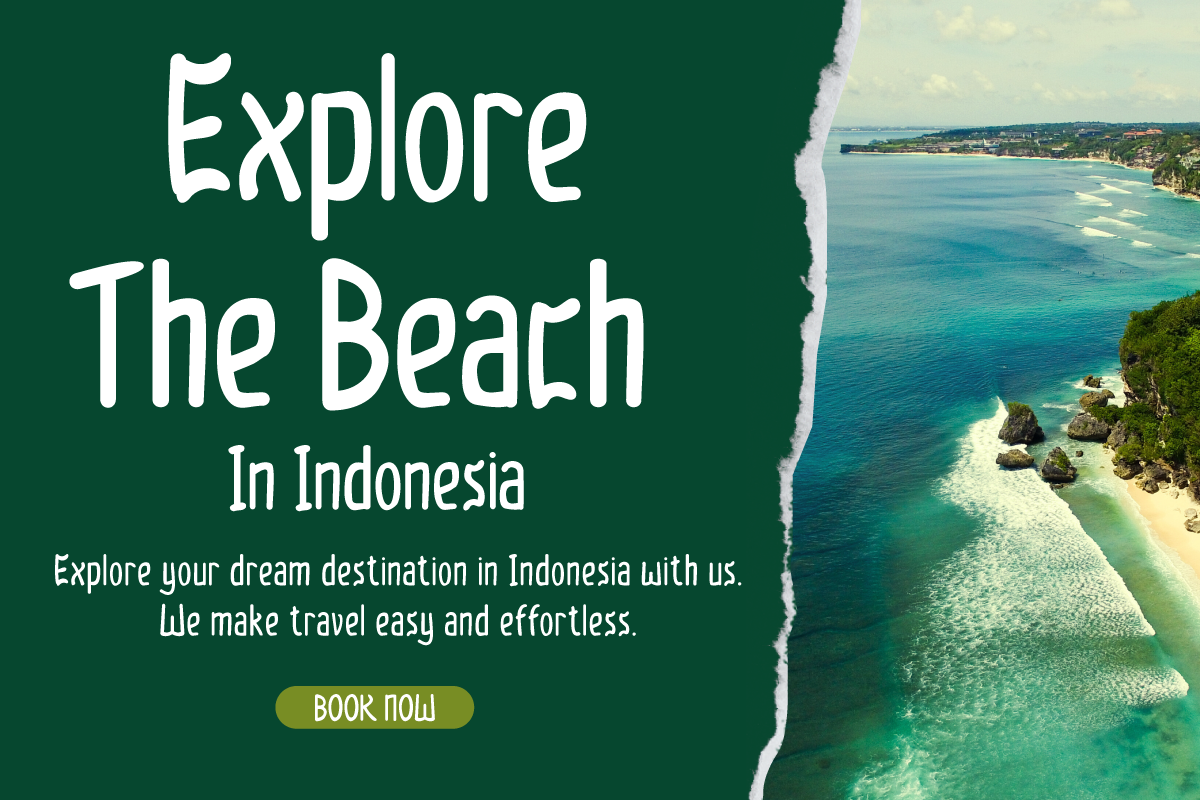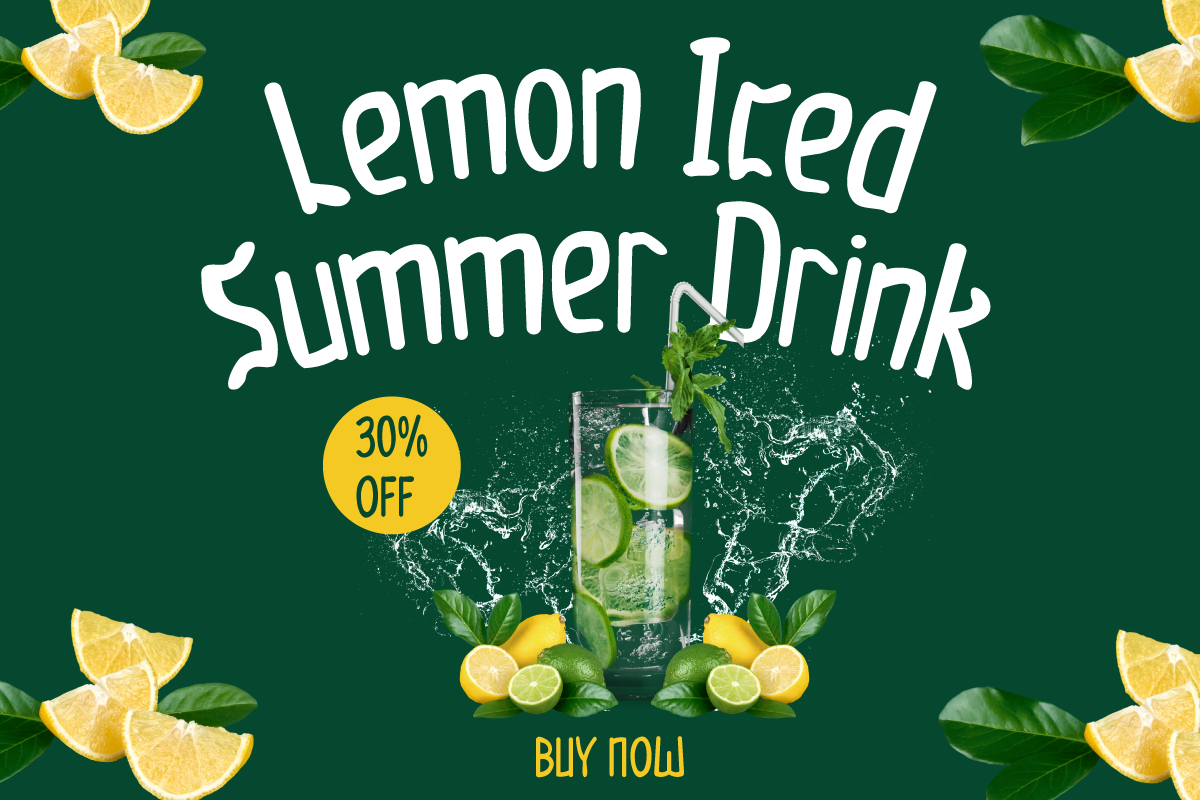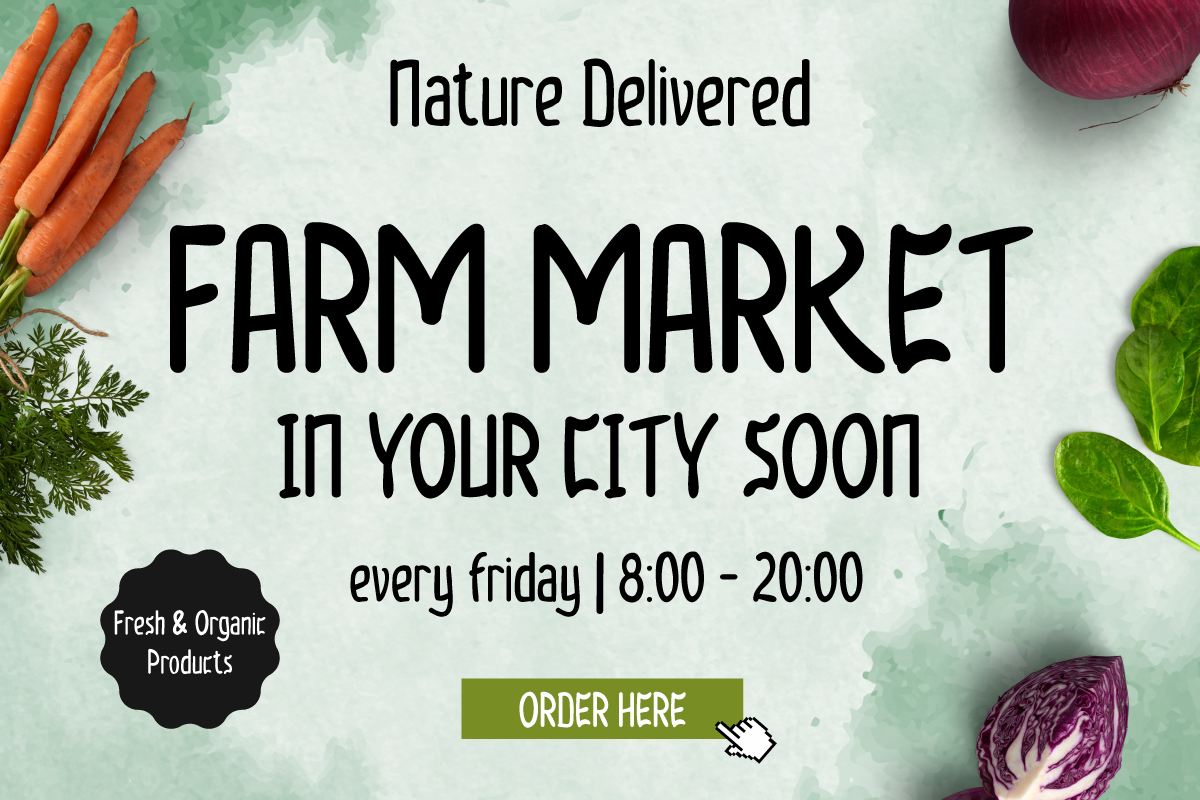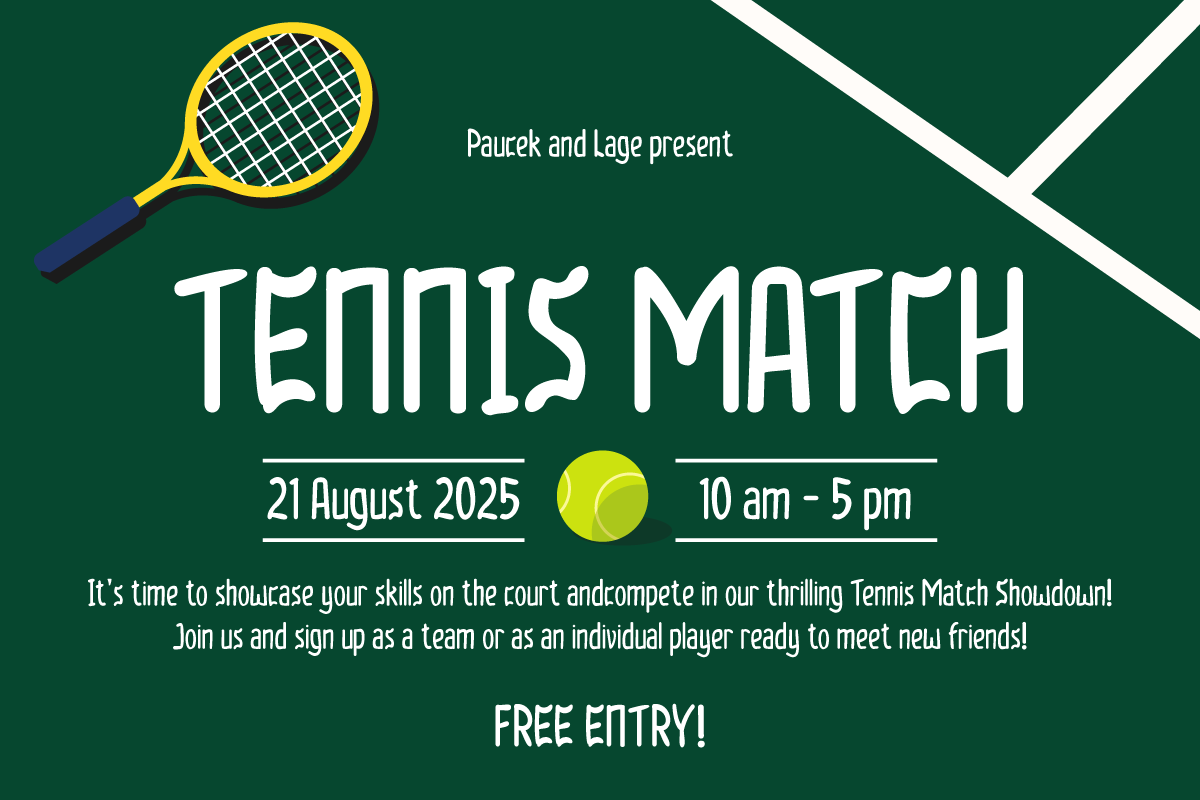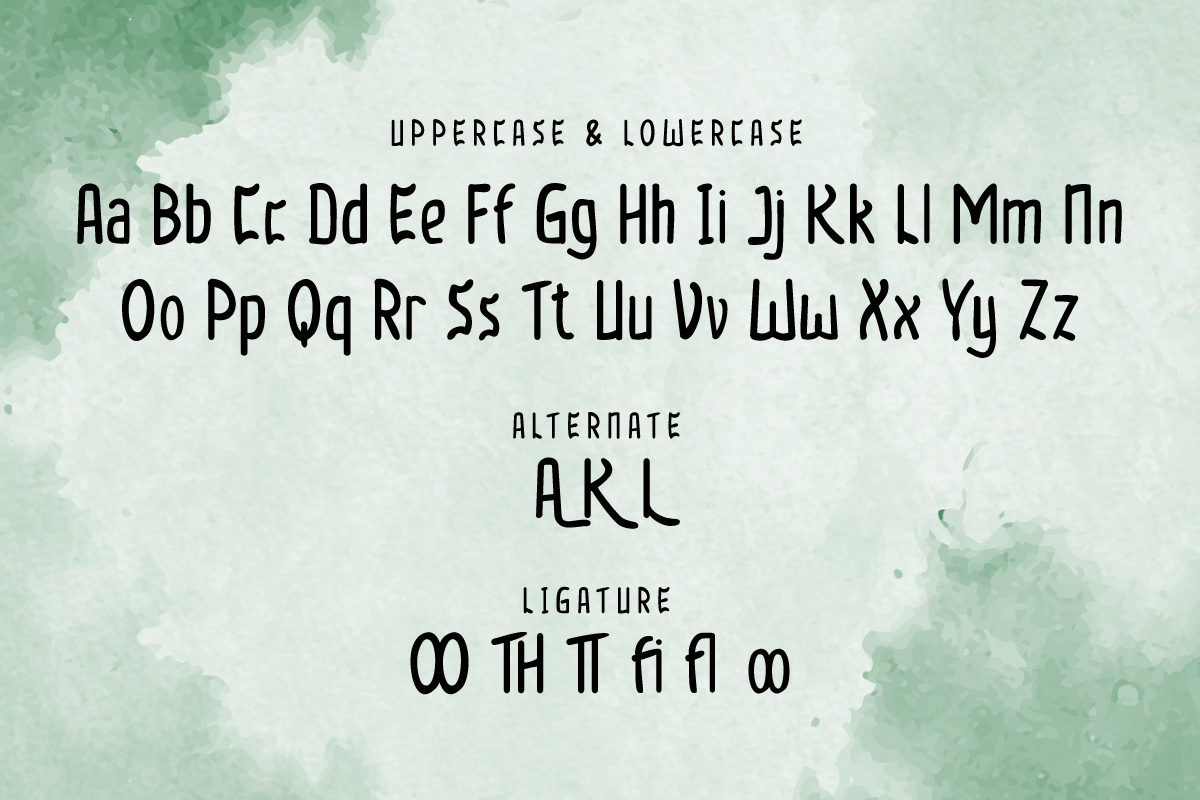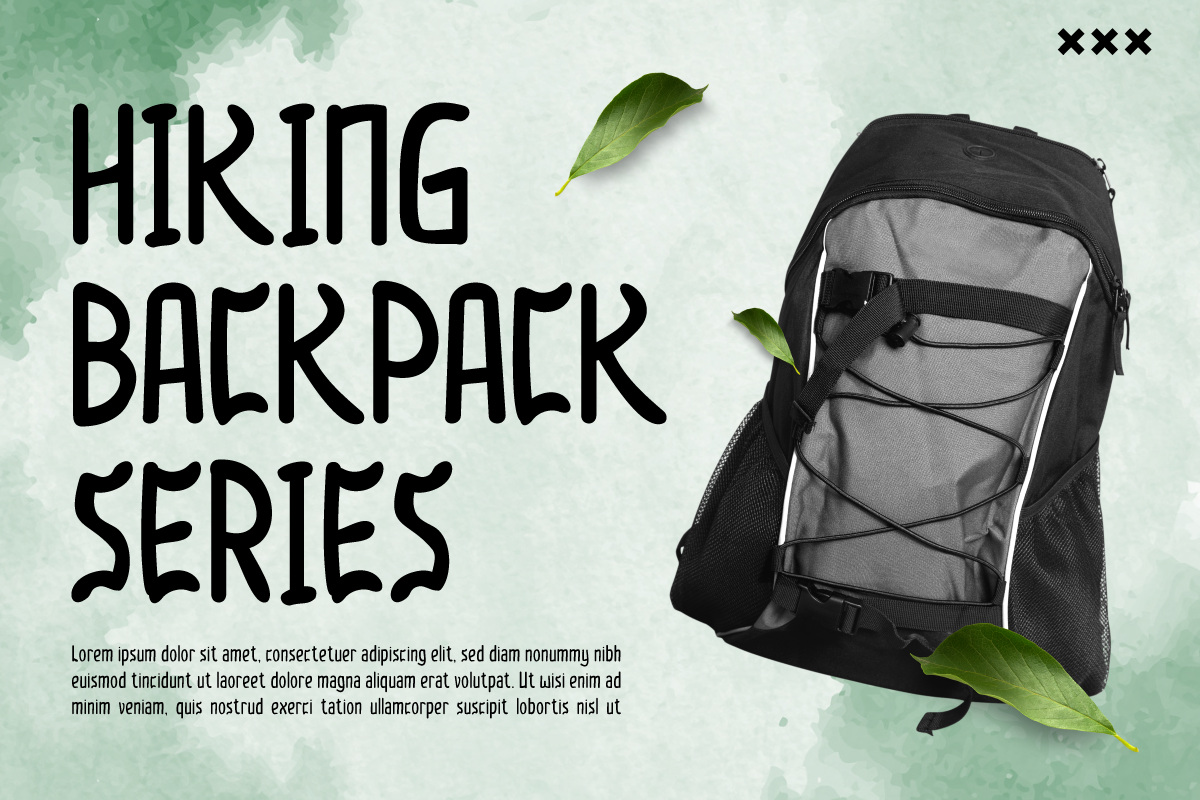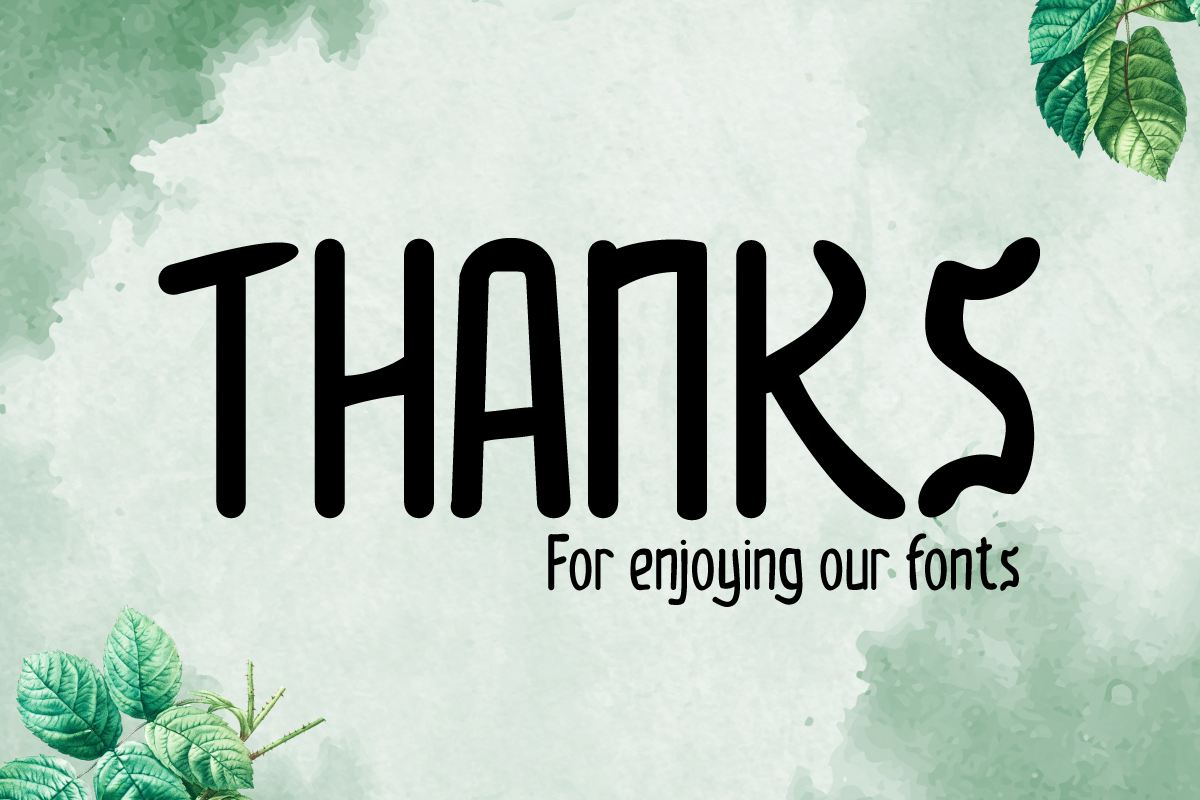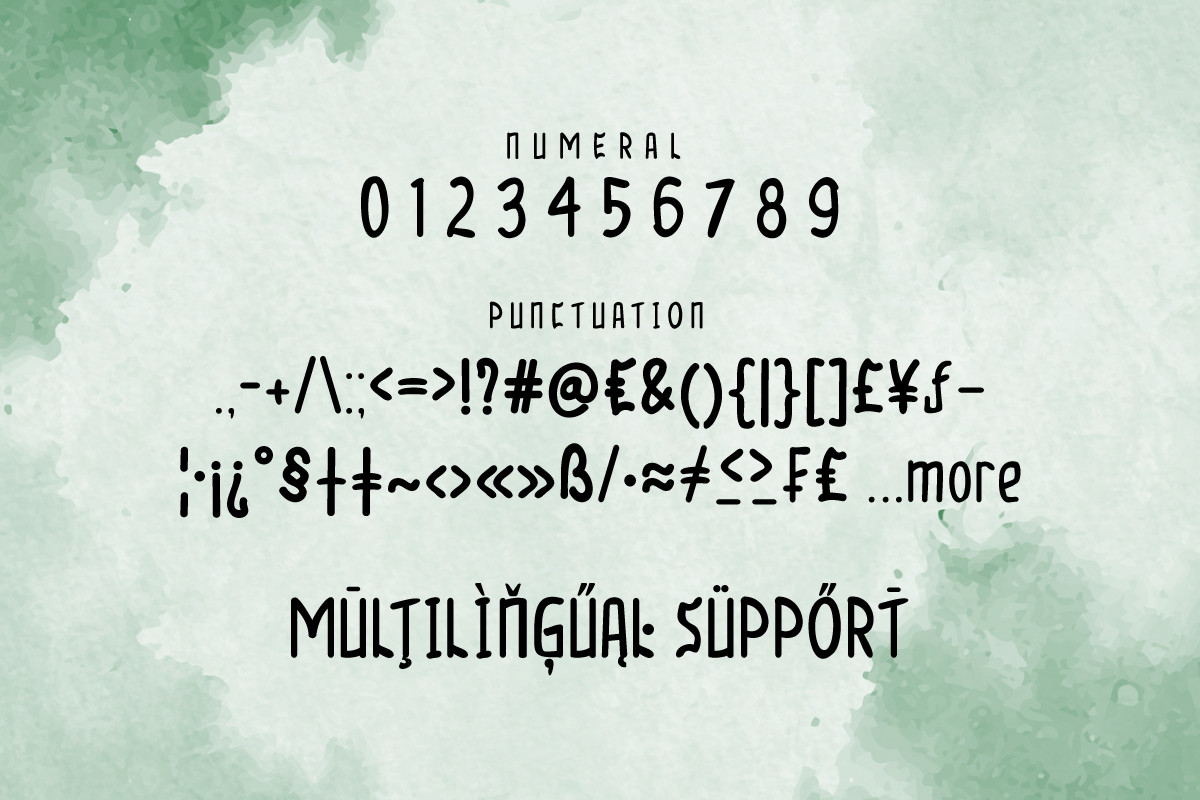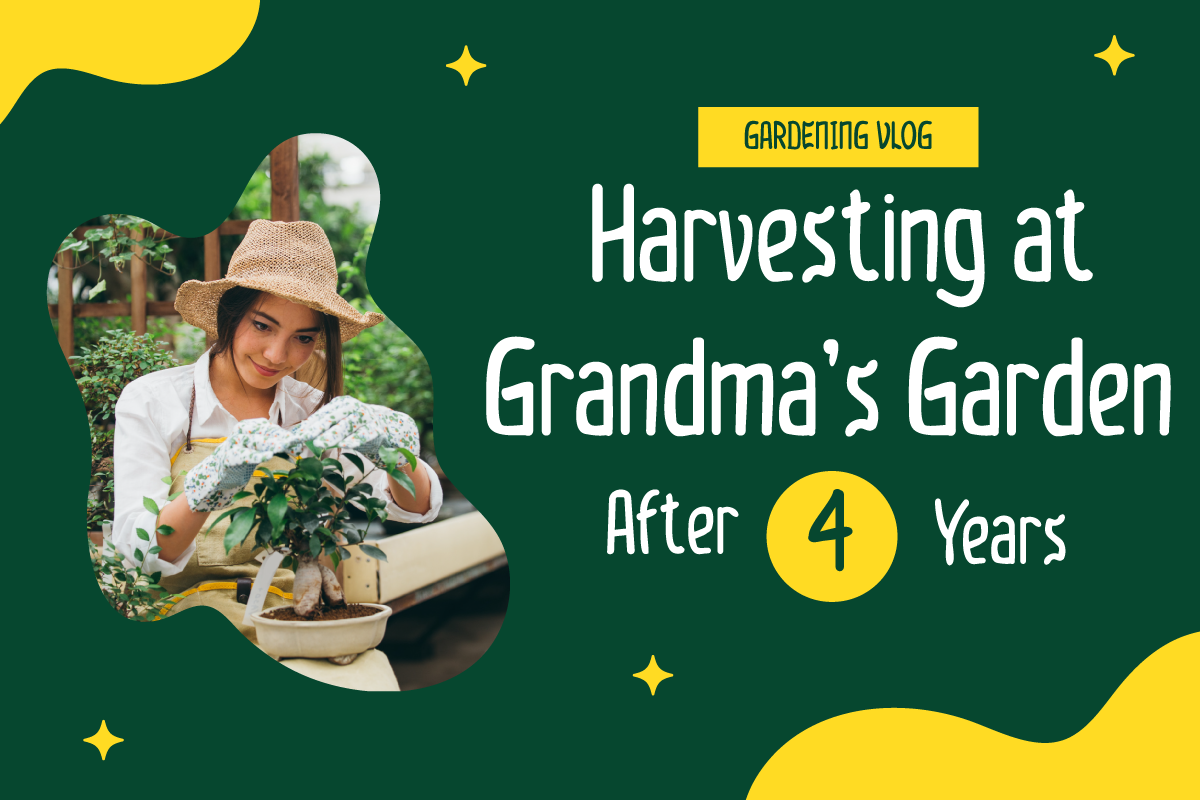
KILUTZ | Summer San Serif Display
Introducing "KILUTZ Font" - The Essence of Summer Brought to Life.
KILUTZ Font embodies the very spirit of summer, making it your go-to choice for infusing a touch of the season into your creative projects. Whether you're designing beachside posters, tropical-themed invitations, or vibrant social media graphics, KILUTZ Font effortlessly captures the essence of summer, instantly drawing attention and evoking the warmth of the season.
Meticulously crafted with the vibrancy of summer in mind, KILUTZ Font radiates the energy and joy of this sun-soaked time of year, creating a lively and inviting atmosphere in your designs.
Its versatility knows no limits, seamlessly adapting to a wide range of summer-inspired projects, from vacation brochures to festival banners.
KILUTZ Font enhances readability and flow with its user-friendly OpenType features, ensuring that your text flows smoothly. It also supports multiple languages, making it accessible to a global audience.
Elevate your creative endeavors and let the spirit of summer shine through with KILUTZ Font. Explore this unique typeface today and bring the vibrant essence of the season to your designs.
- Alternate, Ligature